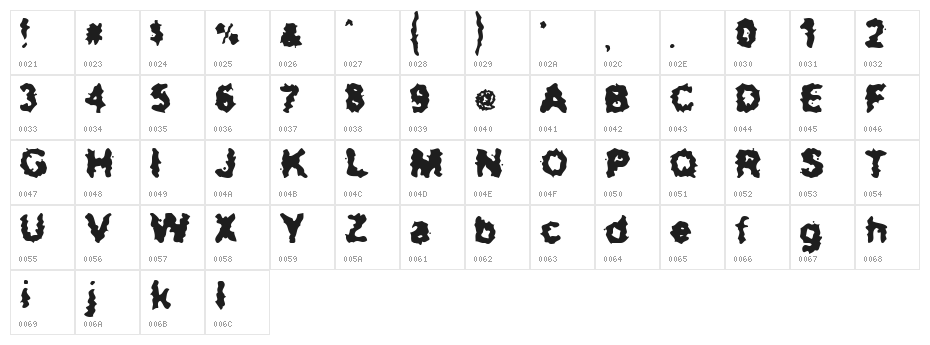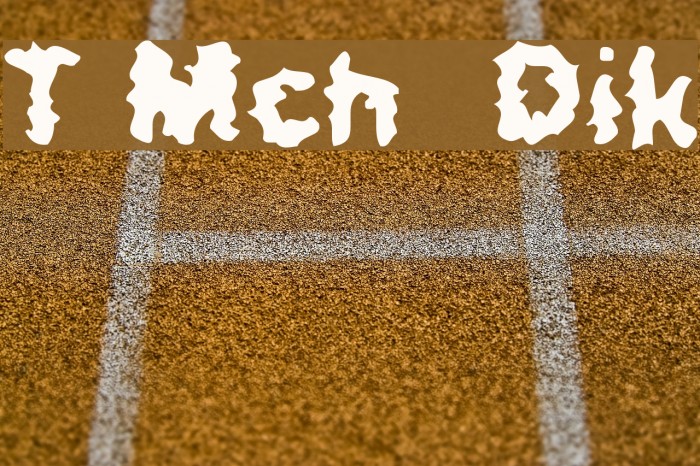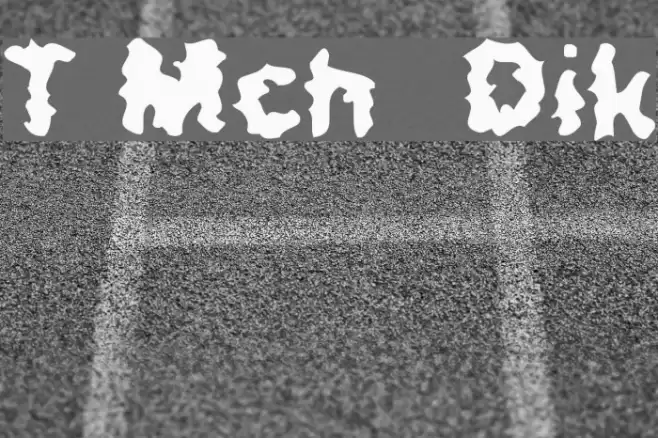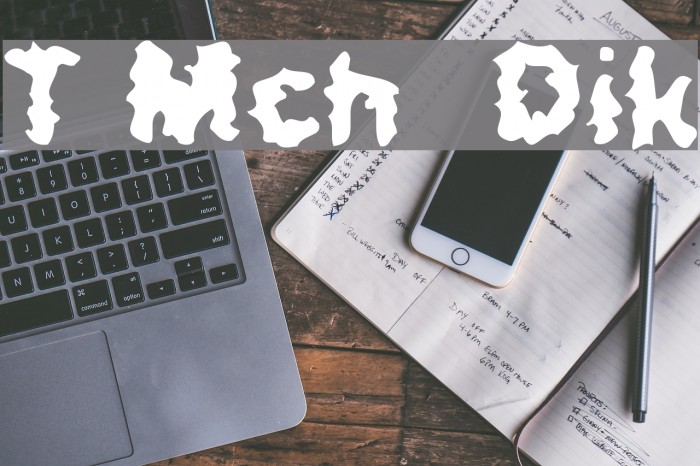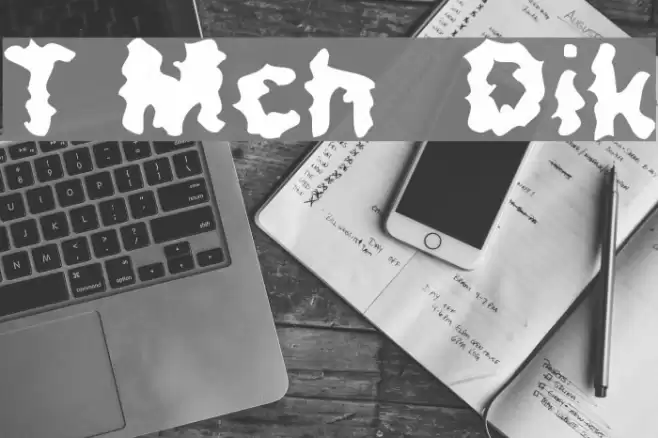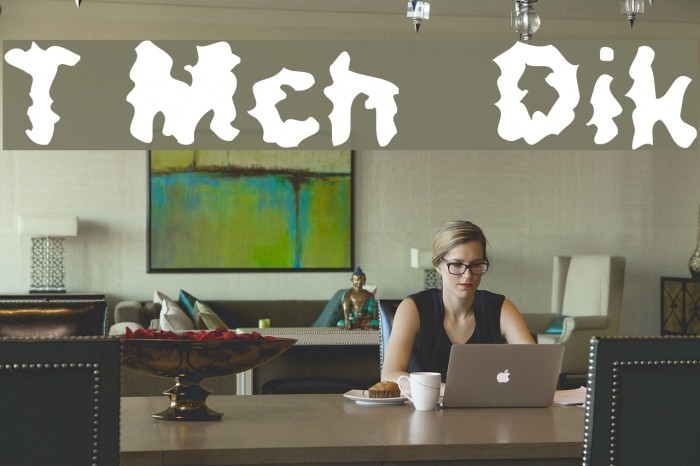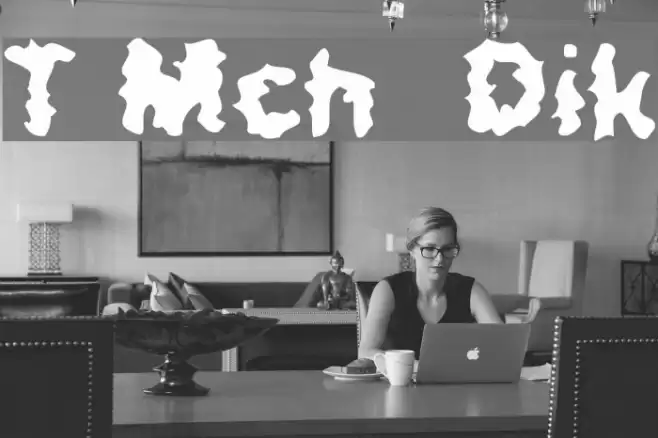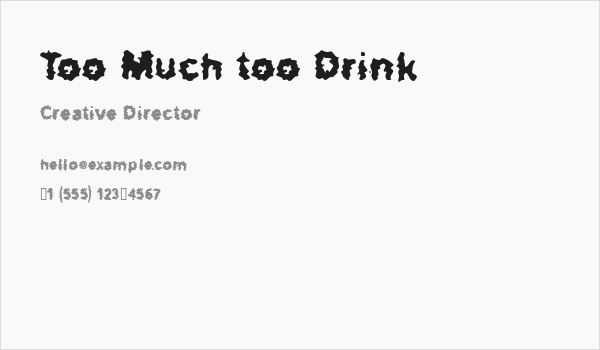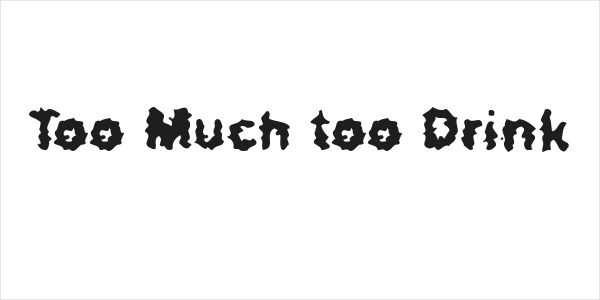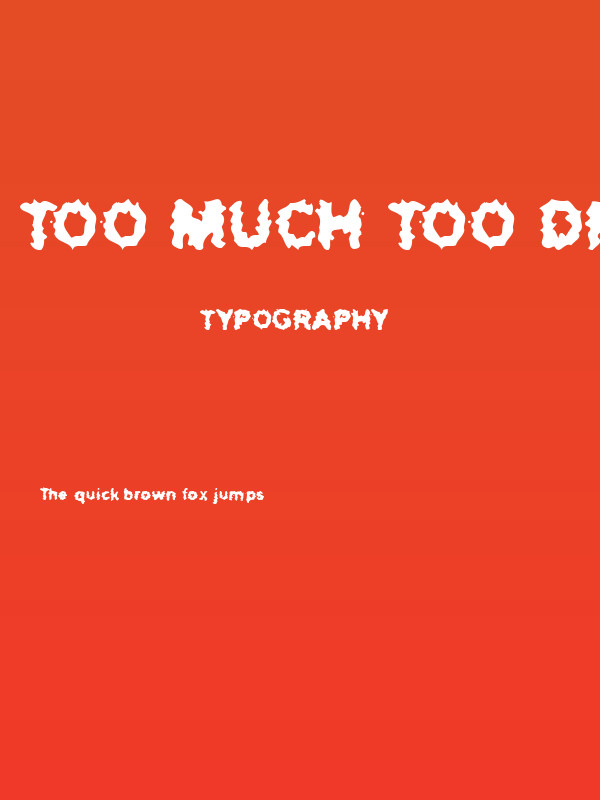
Too Much too Drink Font
Too Much too Drink Description
This font features a highly irregular and organic design, reminiscent of ink blots or splatters. Each character appears to be melting or dripping, creating a chaotic and dynamic visual effect. The uppercase and lowercase letters maintain this fluid style, with varying thicknesses and unpredictable shapes. Numbers and special characters follow the same aesthetic, adding to the overall unconventional and artistic appearance. This font is bold and eye-catching, making it suitable for creative and playful designs. Its unique style is perfect for projects that require a touch of whimsy or a grunge-like effect.
| Proposed Projects | Ideal for Halloween-themed designs, album covers, posters, and artistic projects that require a bold, unconventional look. |